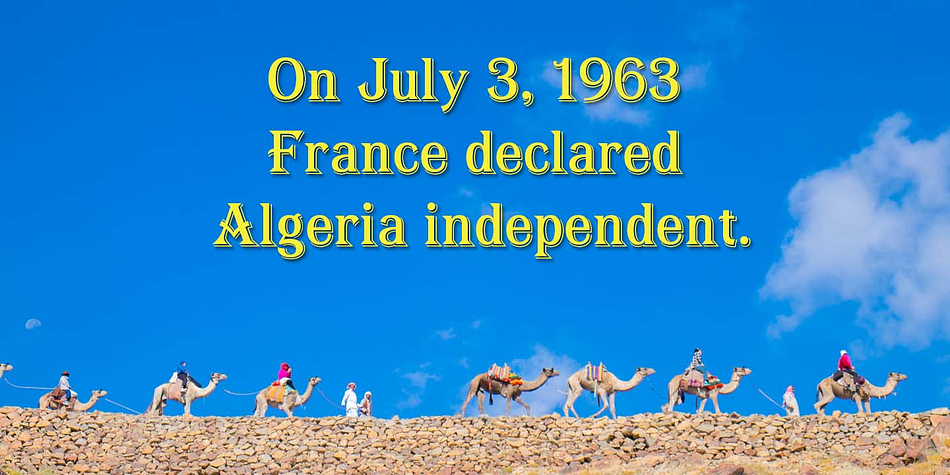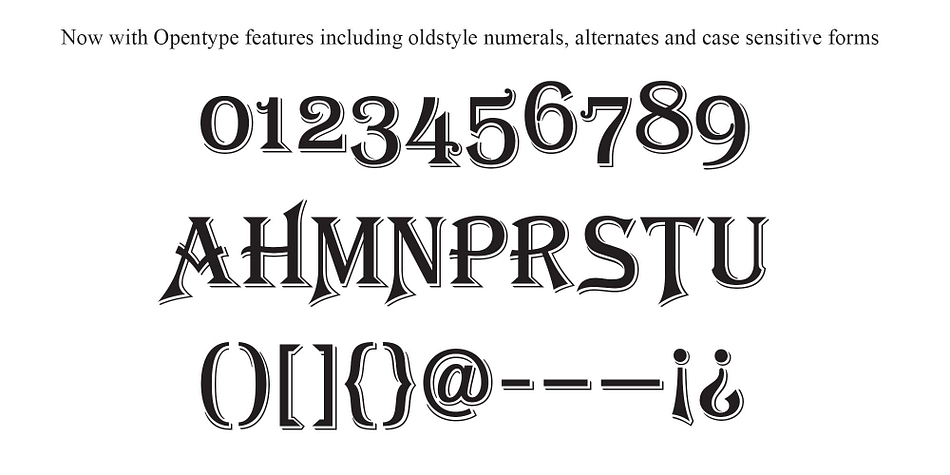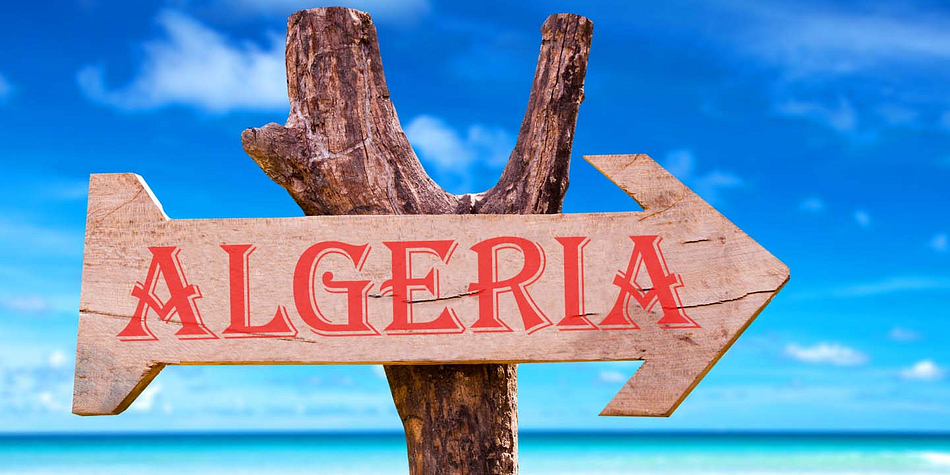
Algerian Mesa is a display serif font family. This typeface has four styles and was published by FontMesa.
Inspired by the old Stephenson Blake Caps only font Algerian, this version, named Algerian Mesa, has been freshened up with a new matching lowercase.
New for 2016 are Opentype features including original alternates, oldstyle numerals and case sensitive forms, also new is a fully usable Alt version.
The original Algerian has long ascenders on the uppercase V, W and Y, in some applications this may create an unbalanced appearance, for this reason the Alt versions are available to give you more options when a different look is desired.